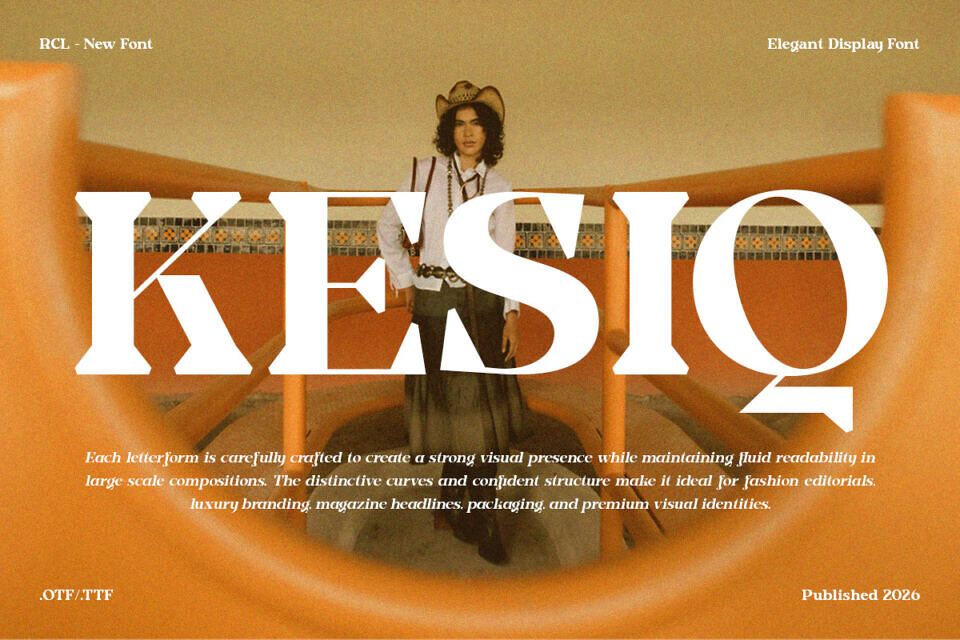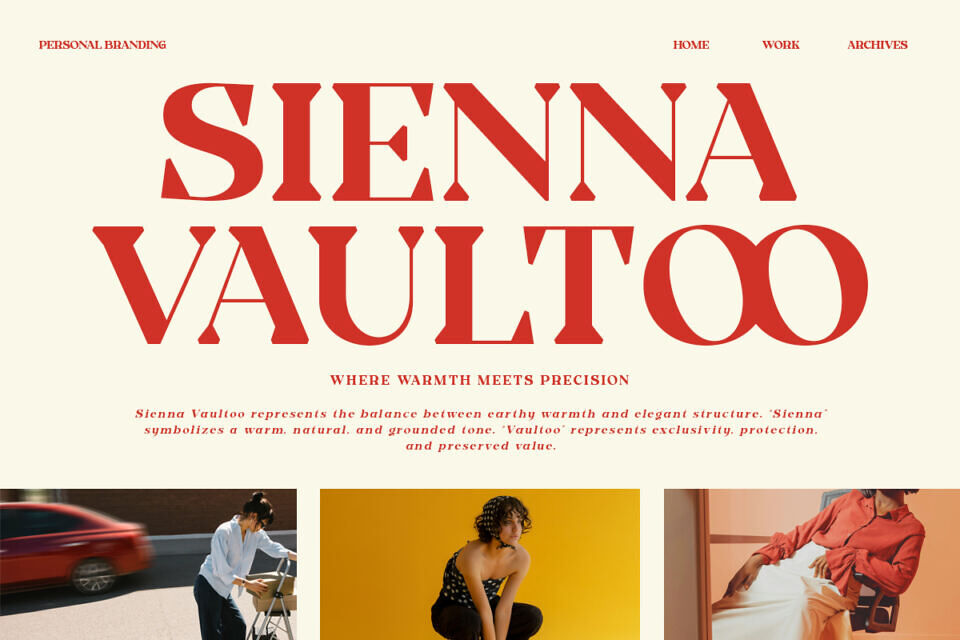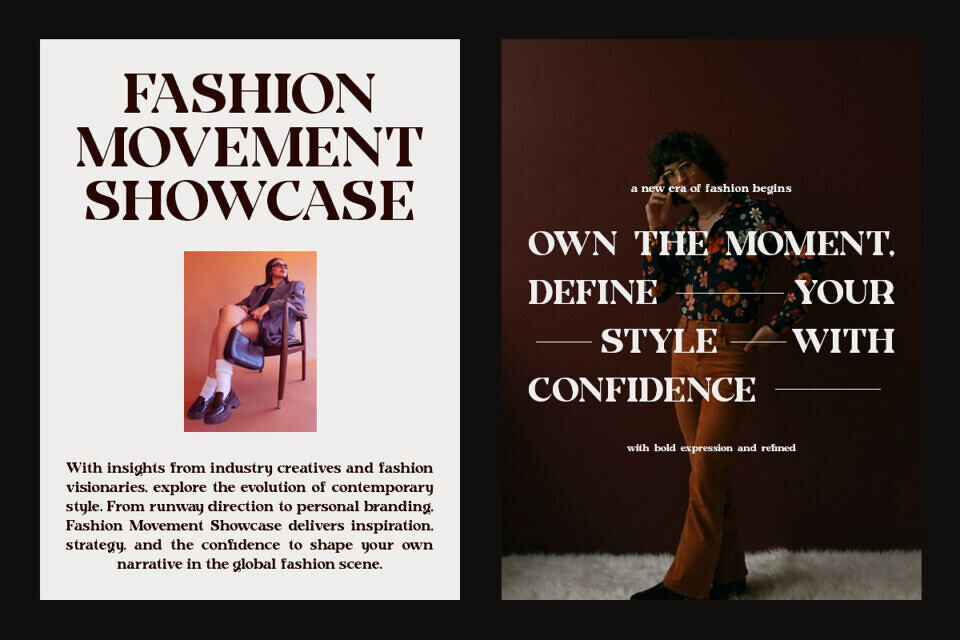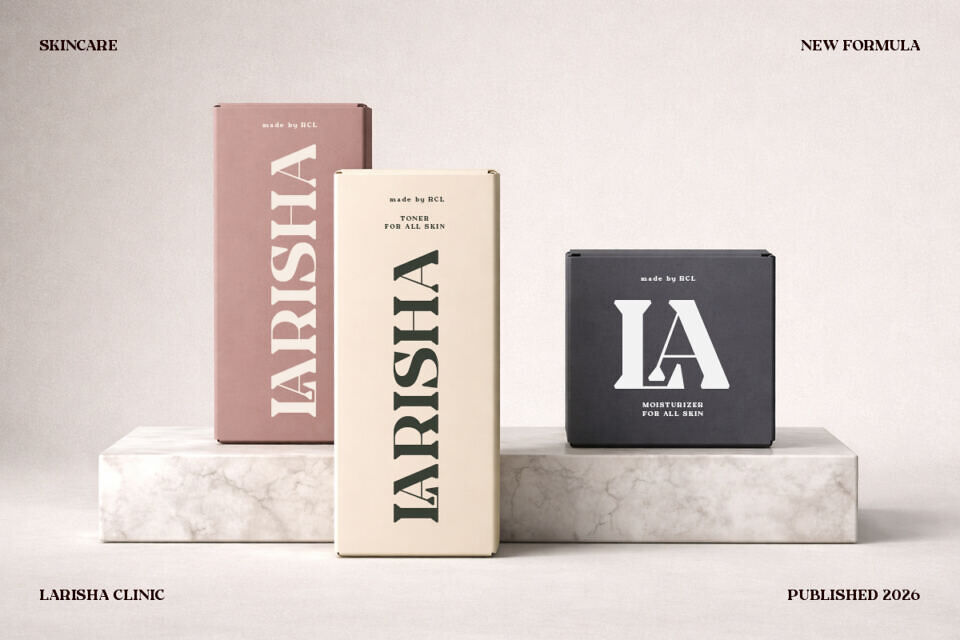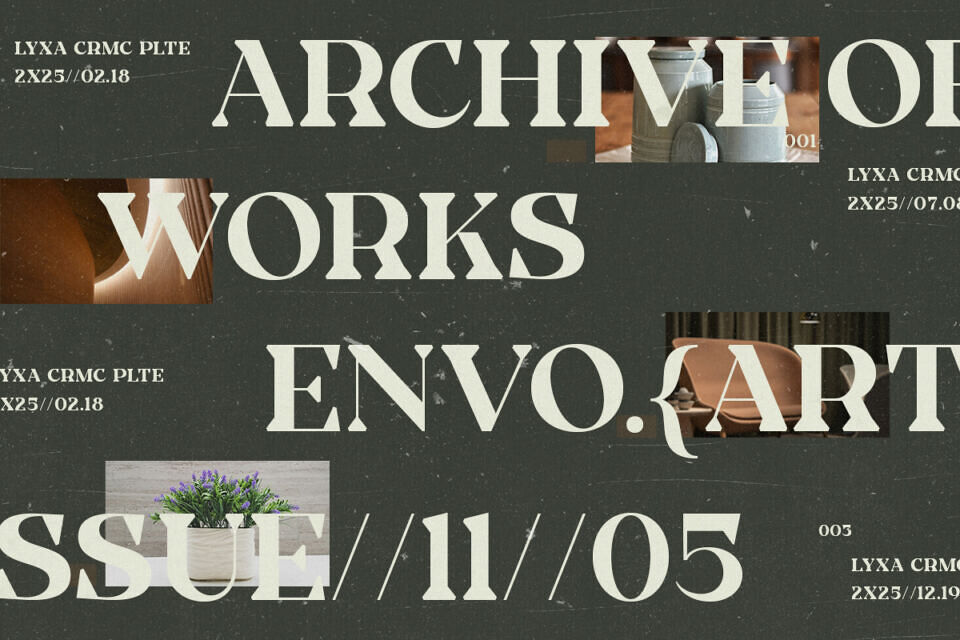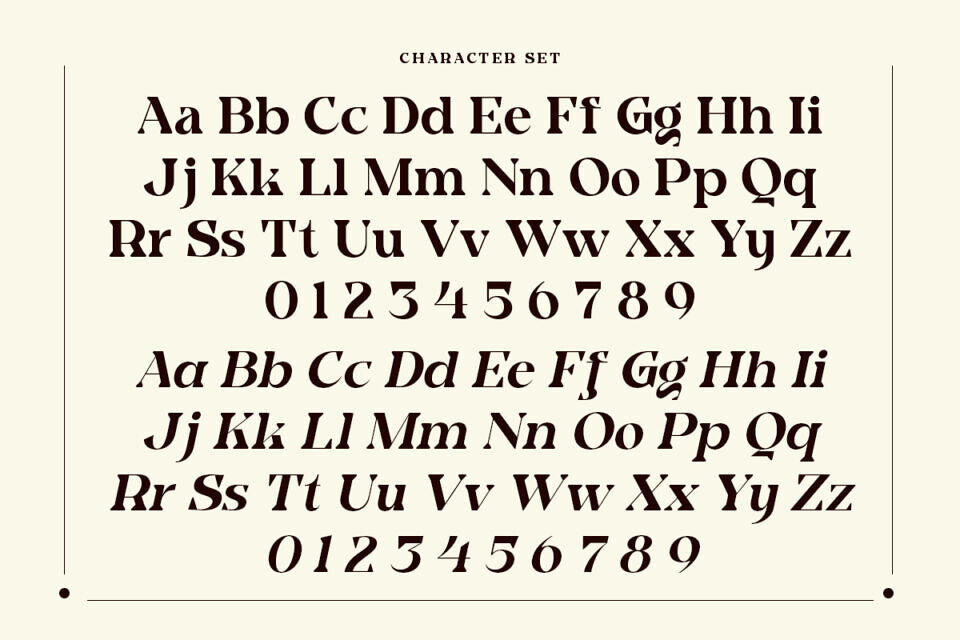
Kesiq Font
Make a bold statement with the Kesiq font, a high-contrast, elegant display face that blends architectural strength with high-fashion fluidity. The Kesiq typeface features distinctive, sharp curves and a confident structure, making it a premier choice for luxury branding and premium visual identities.
Designed for maximum impact in large-scale compositions, each letterform in the Kesiq font is meticulously crafted to maintain readability while exuding a sophisticated editorial vibe. It is the perfect typeface for magazine headlines, high-end packaging, and fashion-forward layouts that require a touch of modern grandeur.